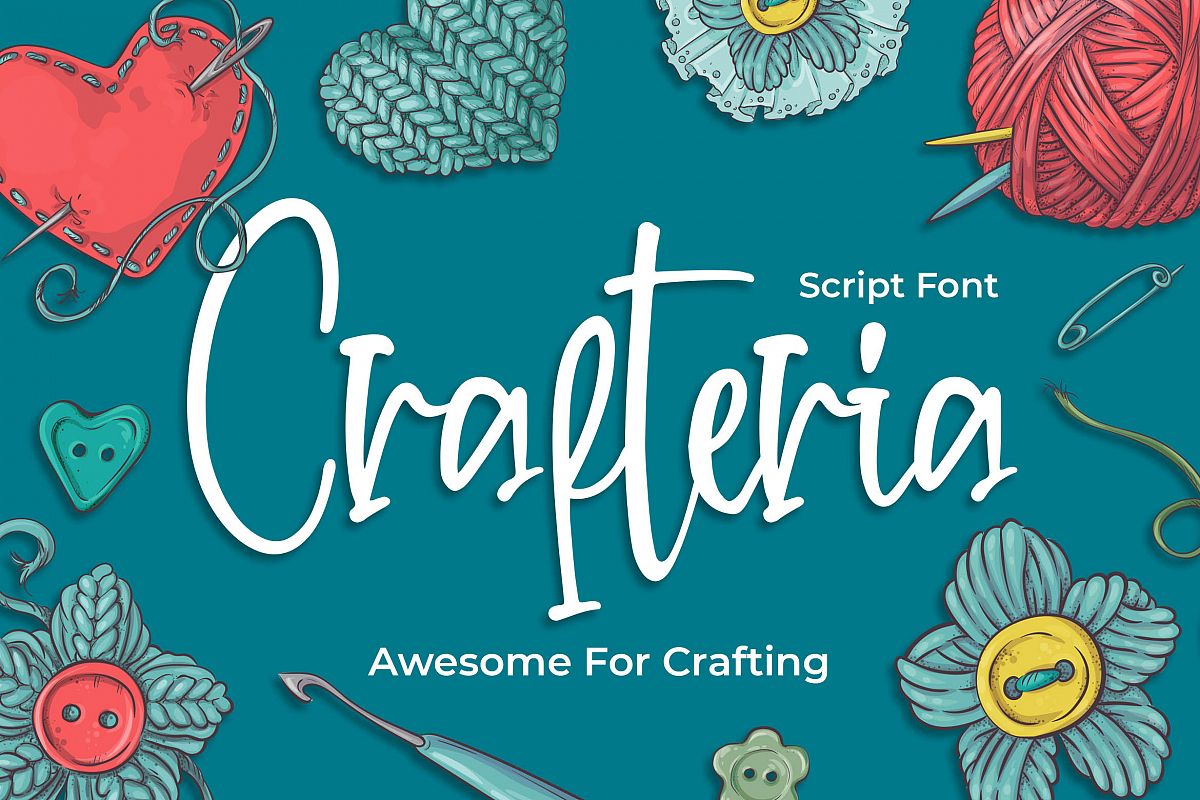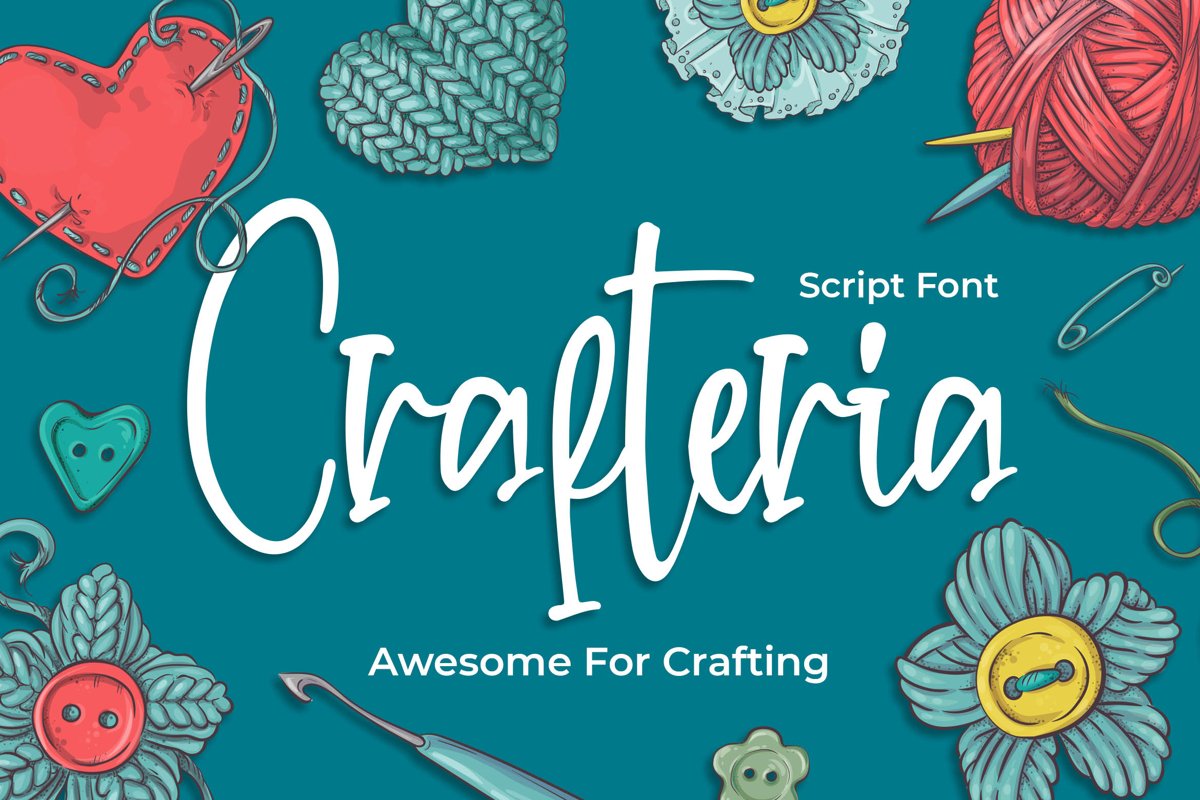
Introducing of our new product the name is Crafteria Script Font. Crafteria good Crafted, logotype, label, badge, headline, signature, packaging and any more.
MULTILINGUAL ACCENT :- ŽžŠŒšŸÀÁÂÃÄÅÆÇÈÉÊËÌÍÎÏÐÑÒÓÔÕÖØÙÚÛÜÝßàáâãäåæçèéêëìíîïñòóôõöøùúûüýÿ
FEATURES :- Uppercase